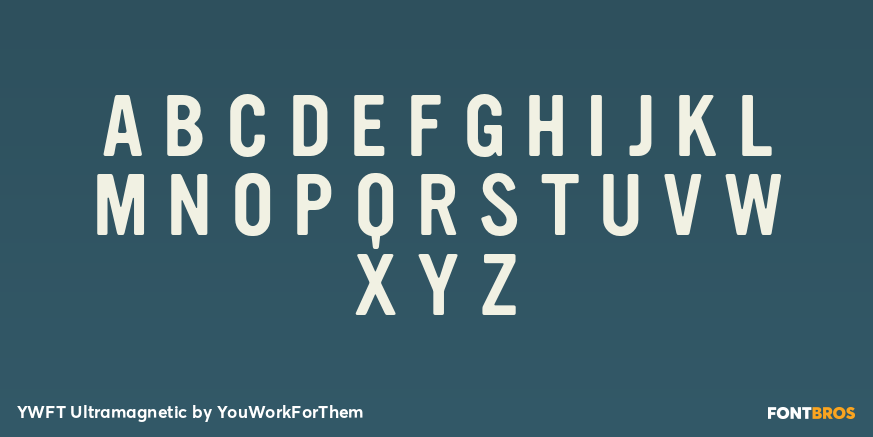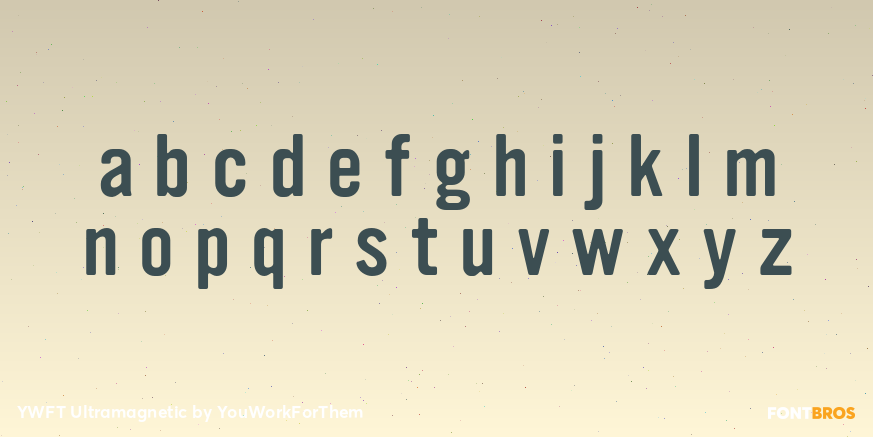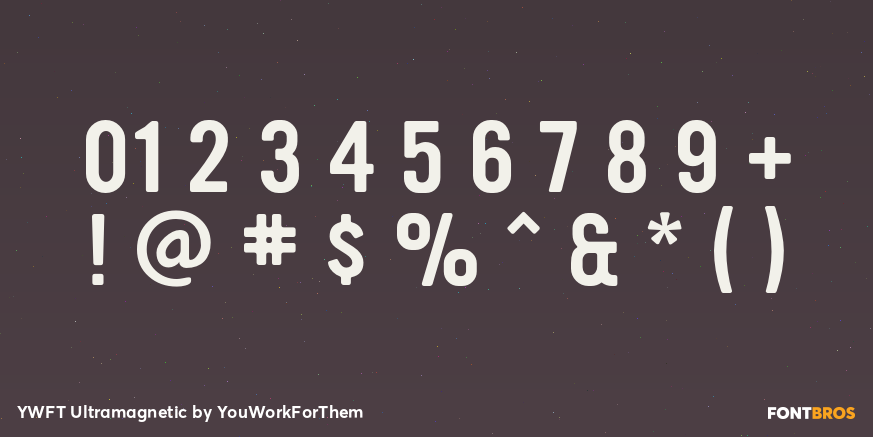
YWFT Ultramagnetic
Font Family by YouWorkForThem
How to make soft-yet-gothic? Countless hours spent researching, and years of refinement, that's how. YWFT Ultramagnetic was finally mastered to postscript/truetype format in 1999 and has gone on to be one of the most widely-used YWFT exclusives of all time. In fact, from 2002-2006, YWFT Ultramagnetic ranked in our Top Ten, spending a majority of that time at Number One. YWFT Ultramagnetic has been used by Harley Davidson, Starbucks, Disney Channel, Best Buy, Nike, Wired Magazine and Architecture Magazine, to name a few. YWFT Ultramagnetic was converted to opentype in 2010. Designed exclusively by Michael Cina and YouWorkForThem.